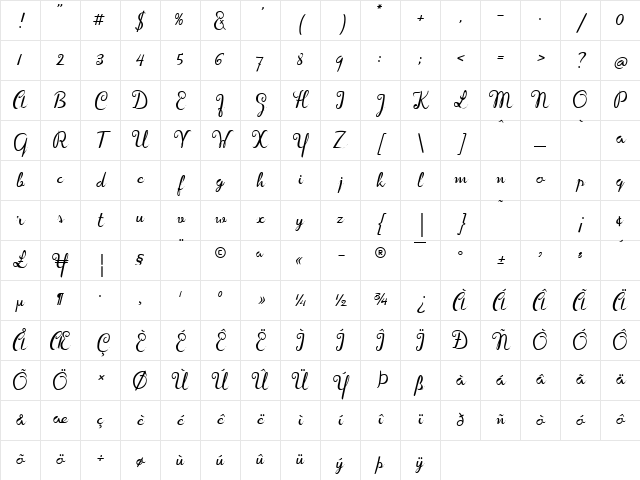
Carl Larsson Italic
Designer: Yves Michel
Design Context for Carl Larsson
Carl Larsson is a composed and adaptable typeface that performs quietly and consistently across a wide range of design contexts. The slanted form adds forward momentum and visual energy.
Pro Tip: Use Carl Larsson for emphasis, pull quotes, and subheadings where its slanted energy can add rhythm to the layout.